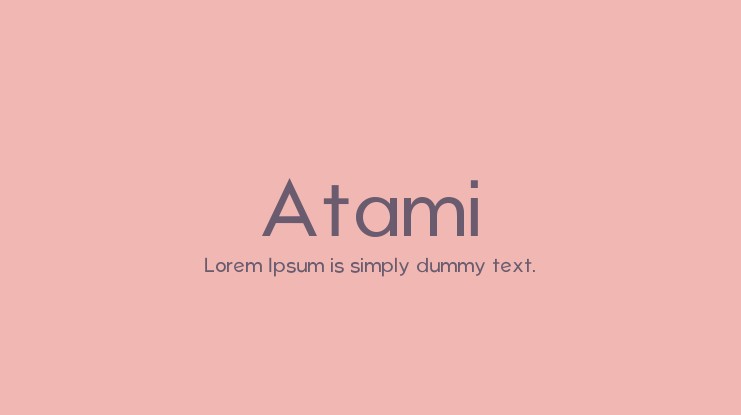
Atami Font
Atami Full Font is commonly recognized under the category of display fonts in the muli font.
This remarkable font has prepared extensively in a great type withholding an opentype define form. This font comes underneath the class of ambitious fonts. That is moreover known as Canter Font.